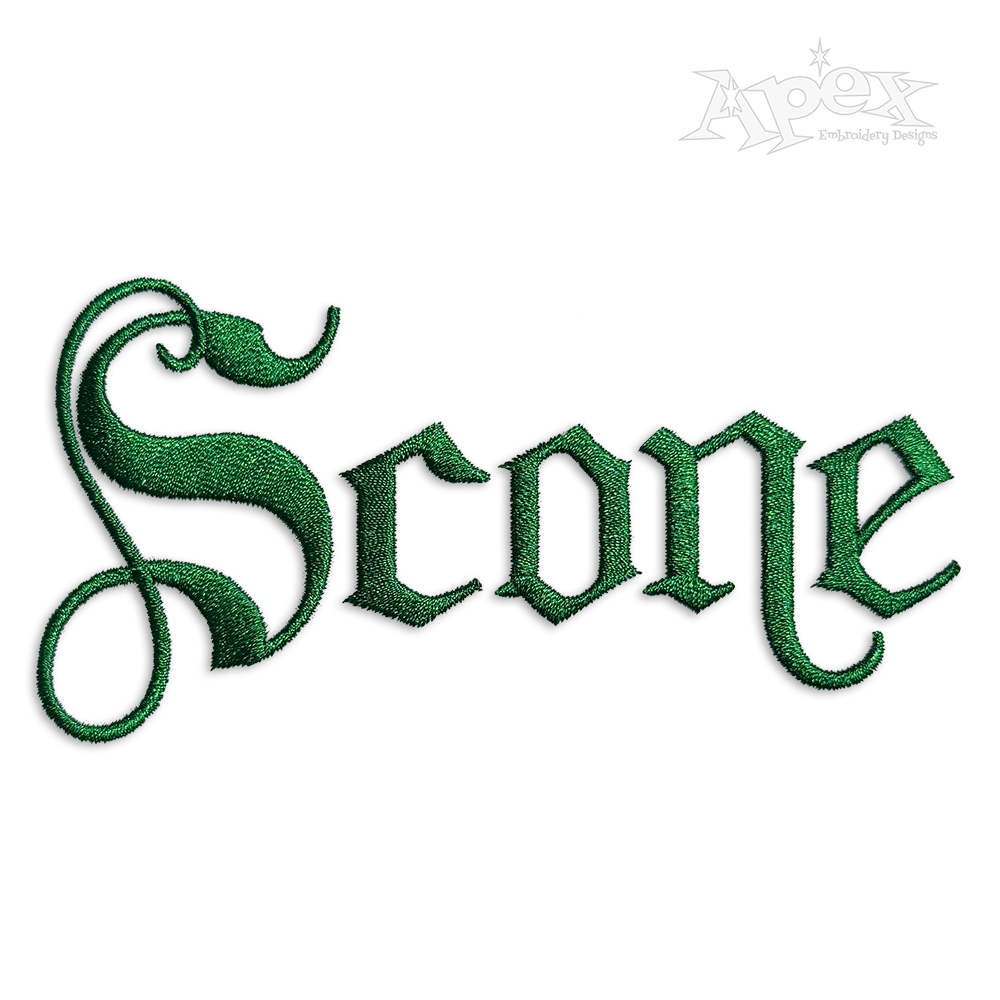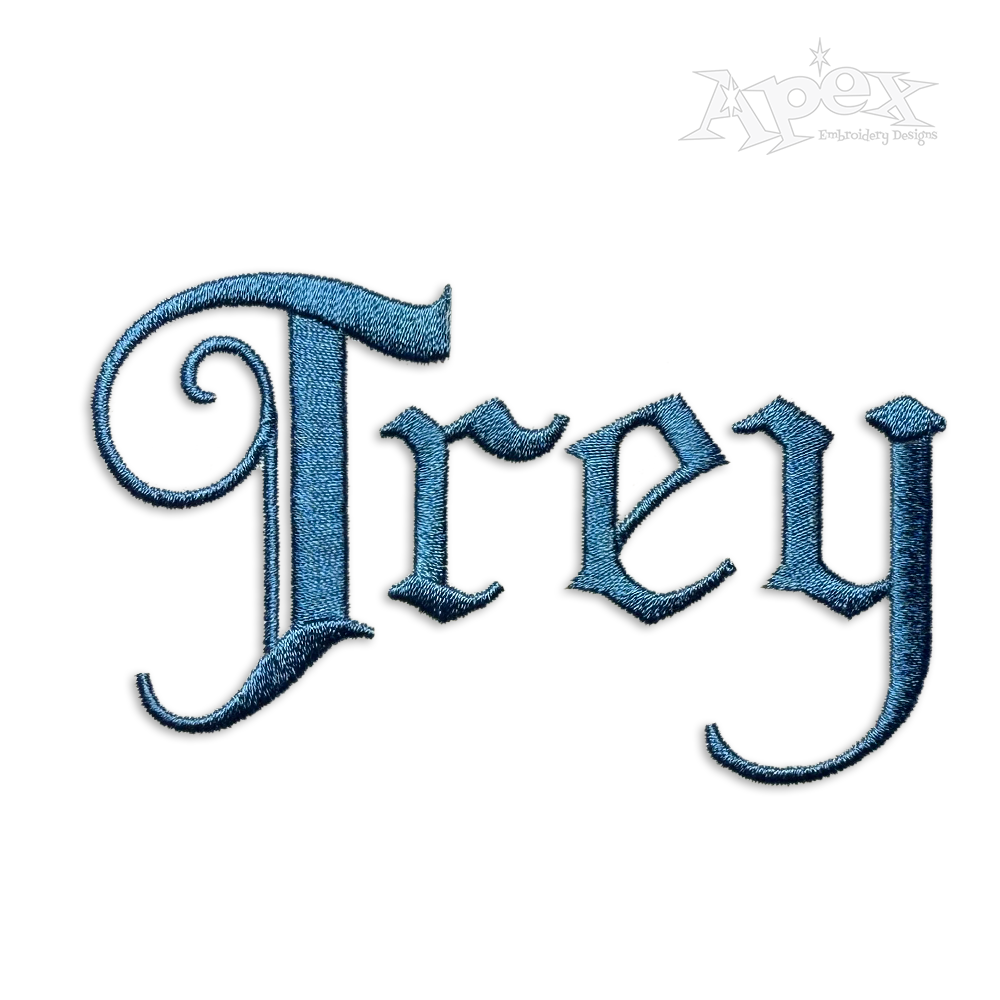
Old English Embroidery Font
There is an enduring, architectural nobility to historic blackletter calligraphy that commands attention the moment the needle begins its rhythmic dance. In digitizing our Old English Embroidery Font, we sought to capture the dramatic authority of illuminated medieval manuscripts and translate it into flawless, light-catching satin threadwork. Every sweeping diamond serif, razor-sharp spur, and stately fracture carries centuries of aristocratic heritage. Designed for those who appreciate old-world craftsmanship, this alphabet bridges the divide between heirloom monogramming and contemporary high-end streetwear, transforming ordinary textiles into distinguished, dimensional statements.
Old English Embroidery Font Craft & Letterform Details
Digitizing authentic blackletter script requires far more than tracing historic typefaces; it demands an intimate understanding of thread movement and light play. Each glyph in this font has been sculpted with custom needle paths that mirror the deliberate cut of a calligrapher’s broad-nib quill. Rather than relying on uniform stitch angles, our digitizers hand-tuned every facet, allowing satin columns to pivot seamlessly around dramatic angled fractures.
Beneath the surface, a structural network of contour and traveling underlay anchors the stitches securely to the base fabric. This hidden foundation prevents push-and-pull distortion, ensuring that the razor-sharp diamond terminals stay crisp and needle points penetrate with pin-sharp clarity. The satin density has been balanced to provide a rich, luxurious loft without creating bulletproof rigidity, giving you smooth, lustrous embroidery that feels as magnificent to the touch as it looks to the eye.